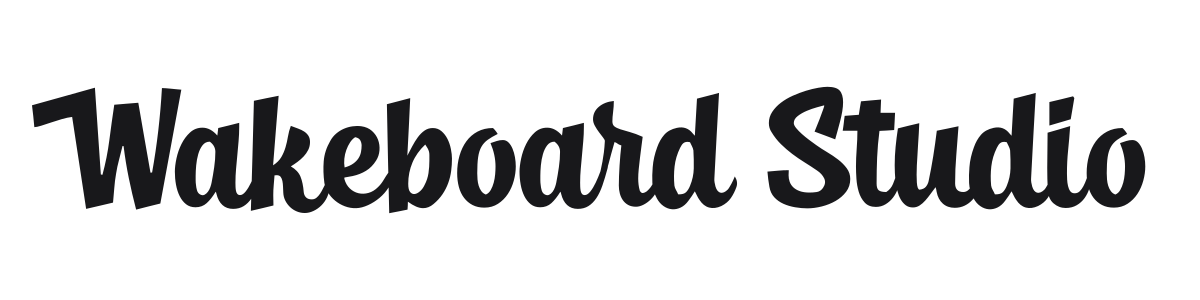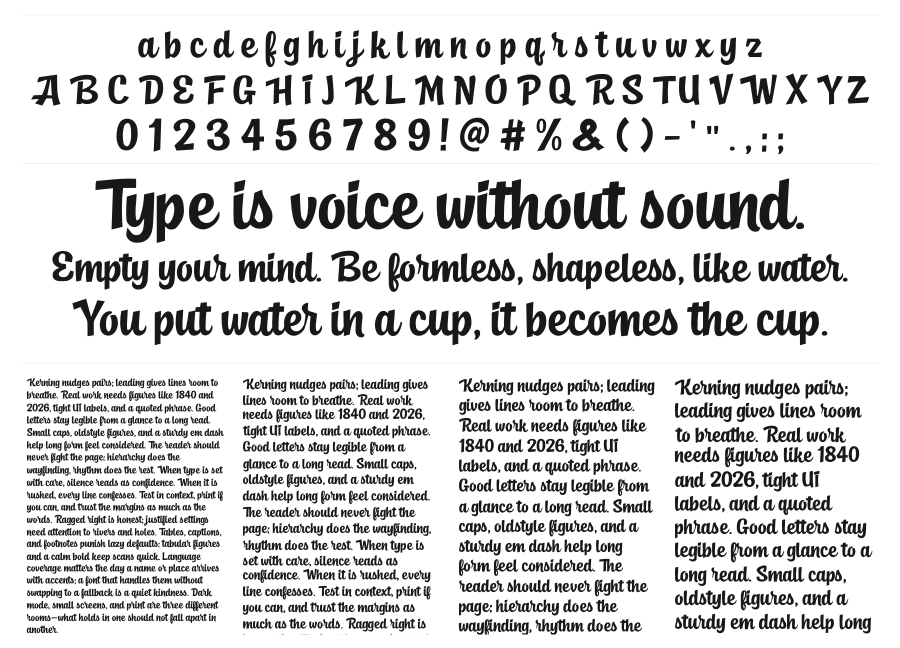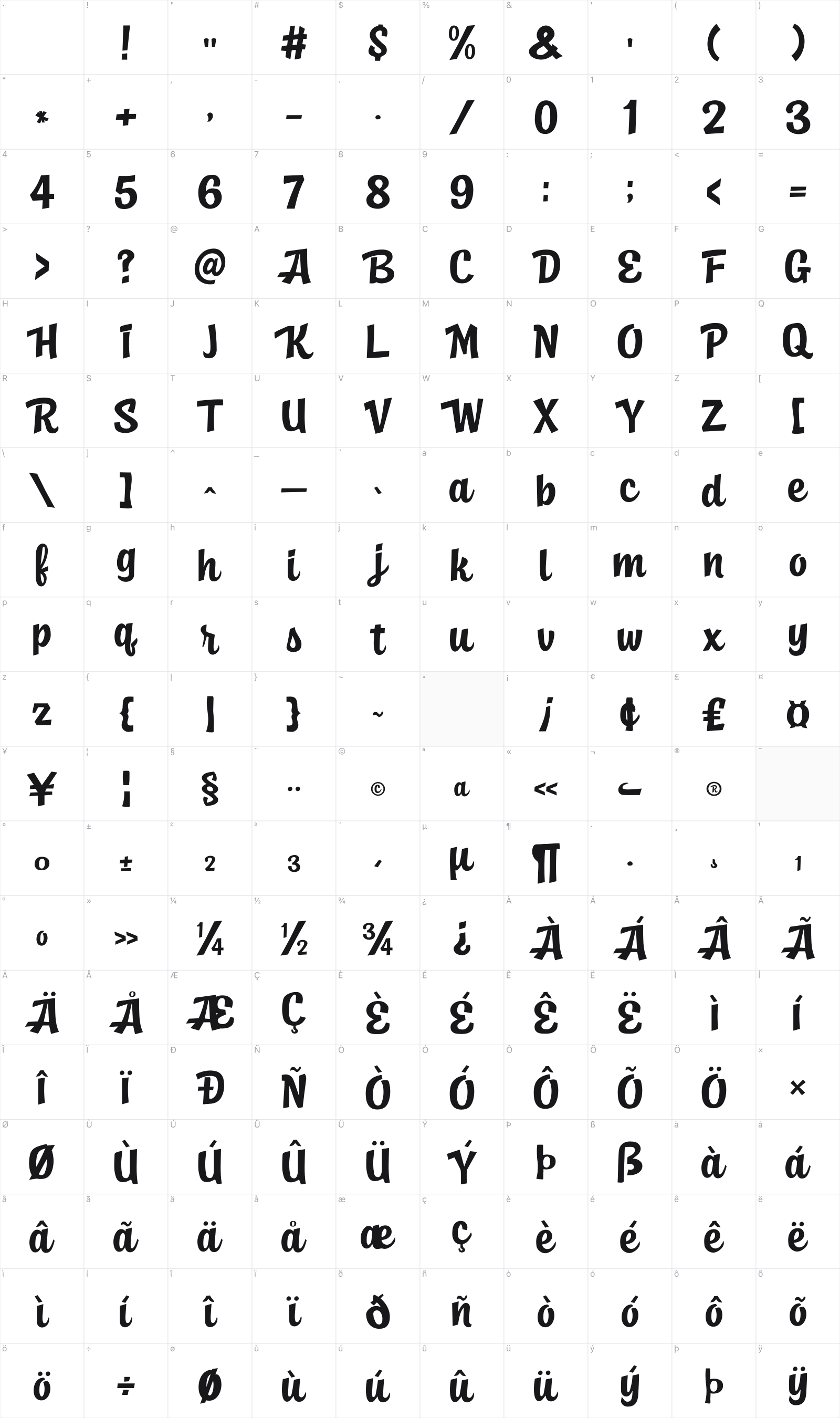
Wakeboard Studio
Wakeboard Studio is a bold connected casual script with heavy rounded strokes and an easy, marker-drawn energy. The naturally flowing connections and ink-trap details at tight junctions keep it feeling handcrafted rather than mechanical. It brings a streetwear or action-sports attitude to apparel, packaging, and poster work.